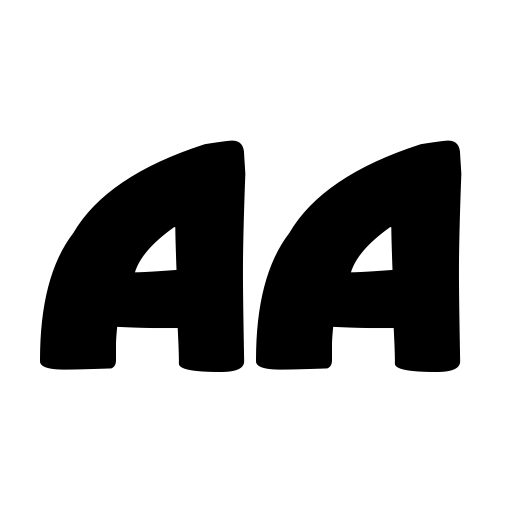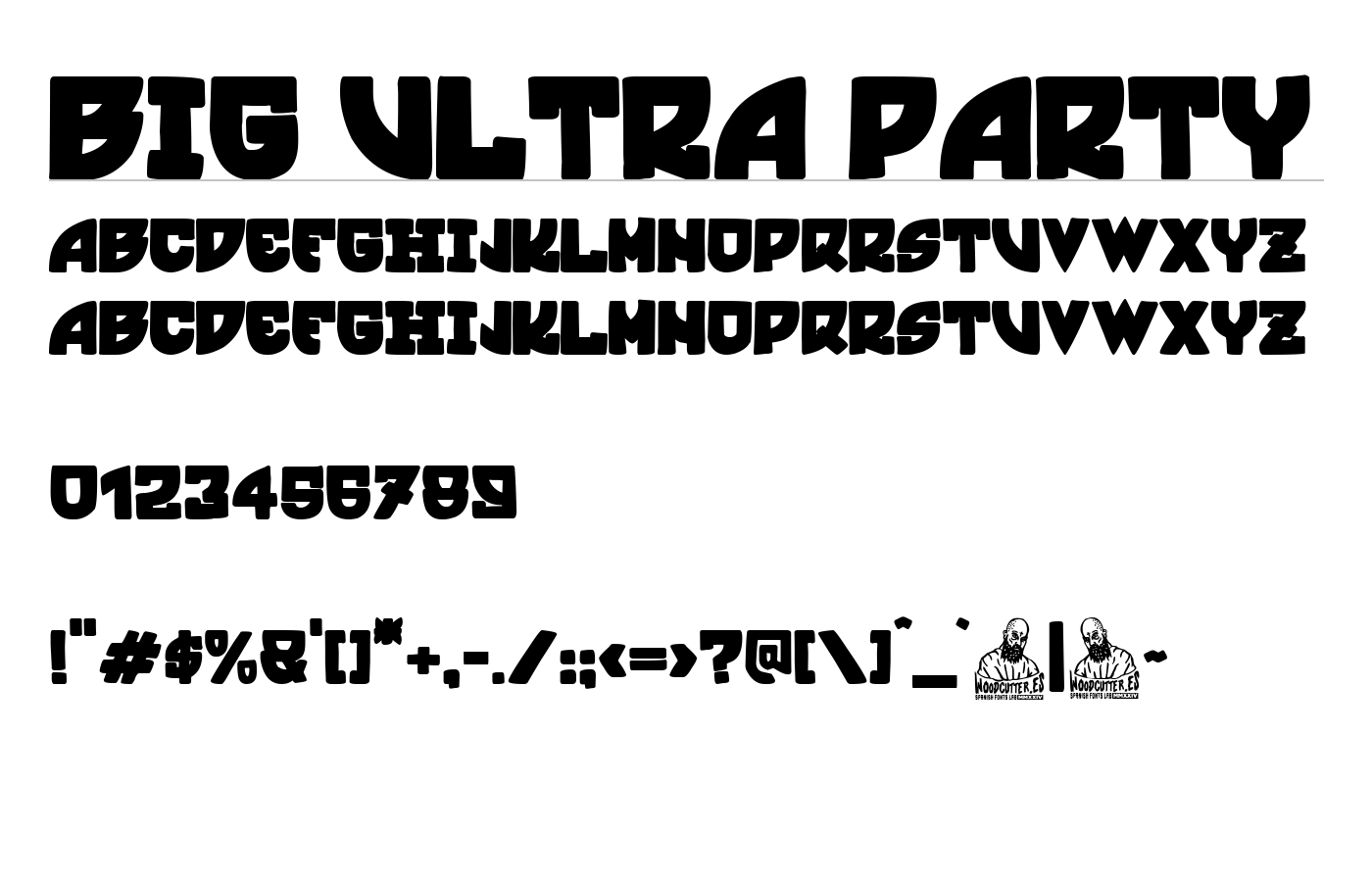
Big Ultra Party is a bold, playful display font with chunky, irregular shapes that bring a lively, fun vibe. Its heavy weight and wide, slightly condensed letterforms make it perfect for eye-catching headlines, party posters, and festive branding, conveying energy and excitement in a quirky, informal style.
Big Ultra Party Font
About Big Ultra Party Font